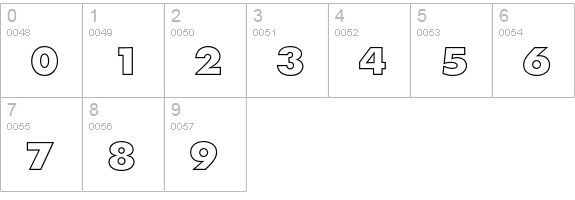
Futura Extra Bold Outline is a strong, high-contrast variant in the Futura typeface family \xE2\x80\x94 well suited to headlines, attention-grabbing titles, and strong calls-to-action.
Futura Extra Bold Outline font is a striking and modern typeface that demands attention with its bold and clean lines. Ideal for headlines, titles, and eye-catching designs, this font exudes confidence and strength. The outline style adds a unique touch, making it stand out even more. Best of all, Futura Extra Bold Outline font is available for free download at FontsMarket.com. Whether you're working on a poster, logo, or any other design project, this font will add a touch of boldness and sophistication. Download it today and unleash your creativity with this versatile and impactful typeface.